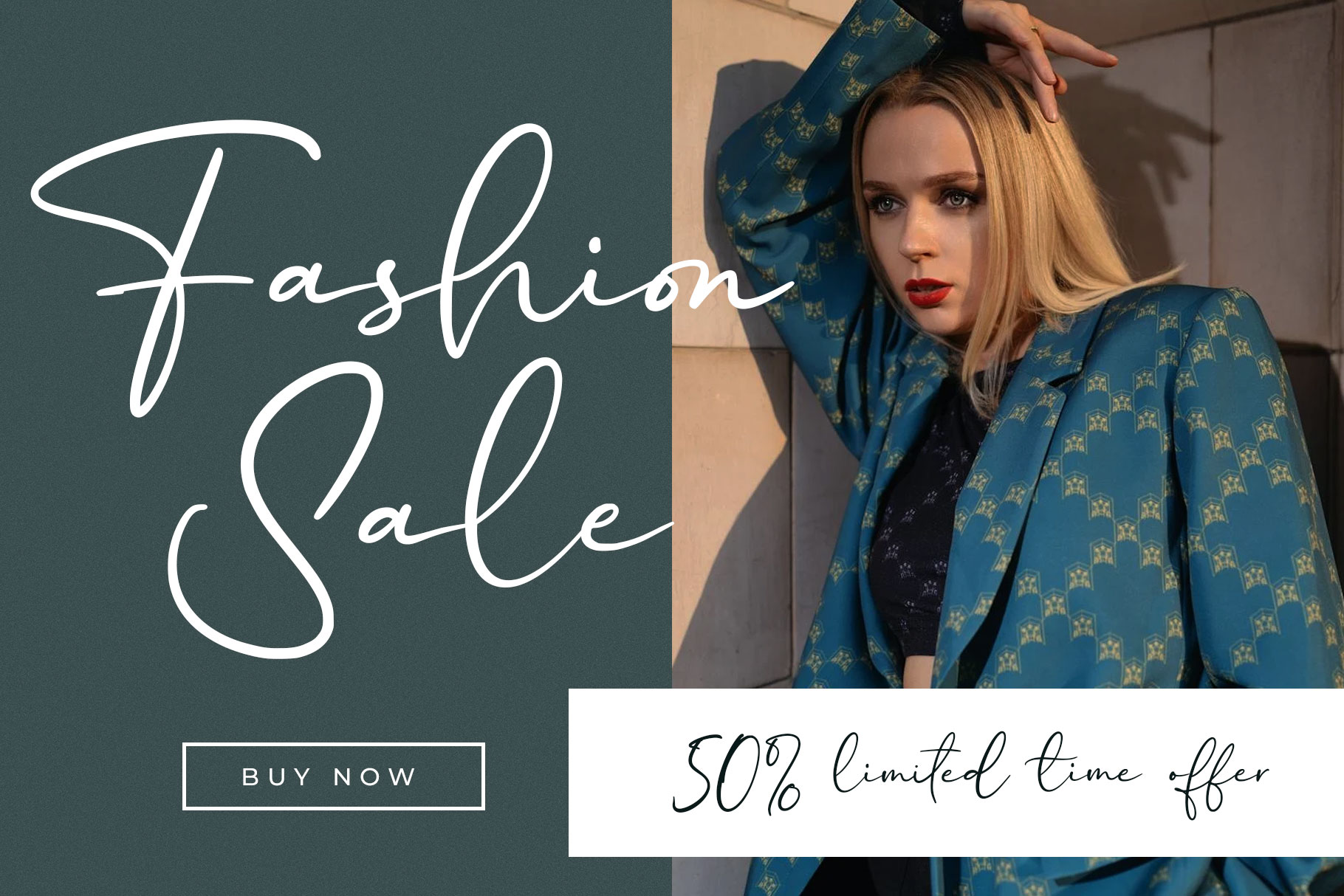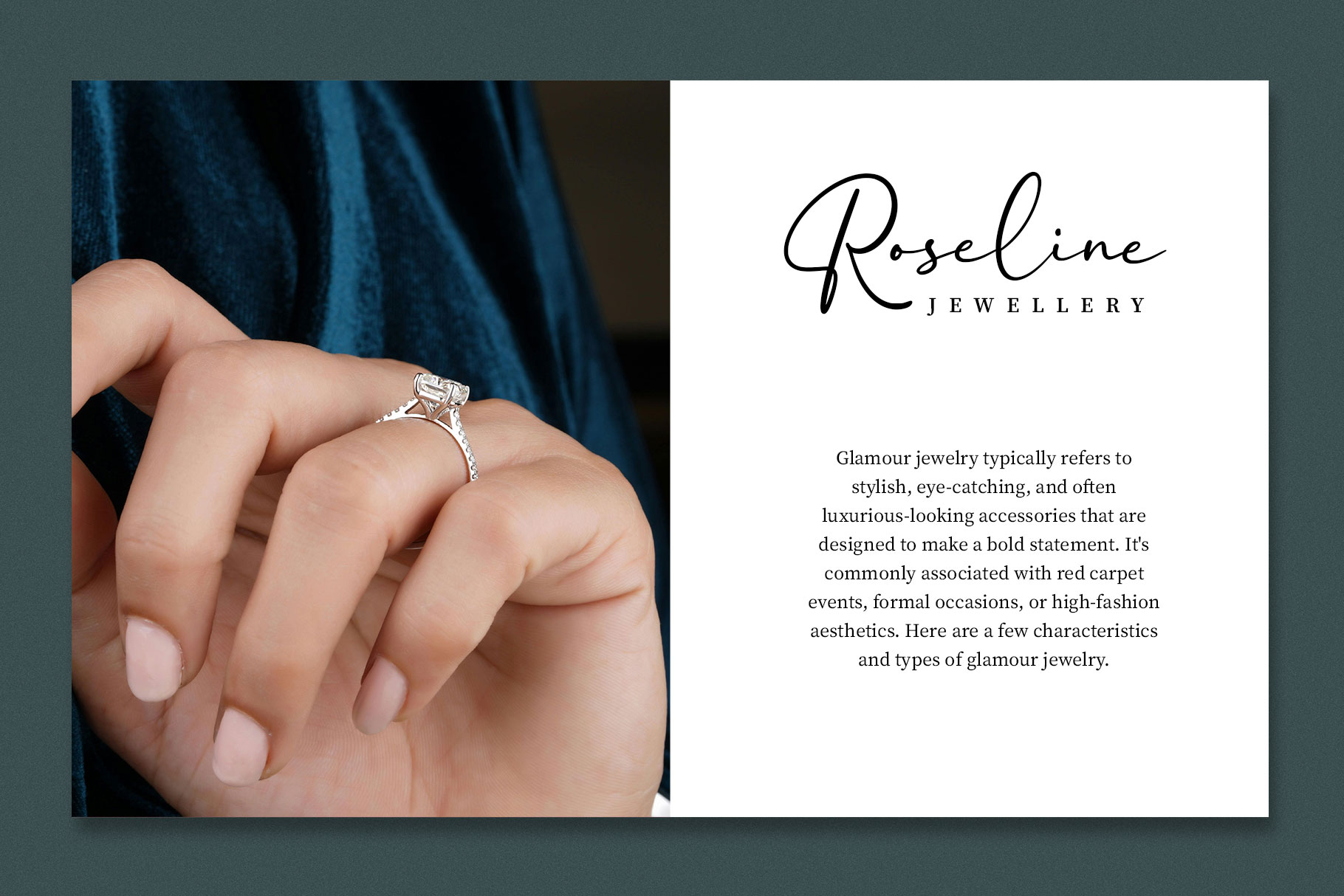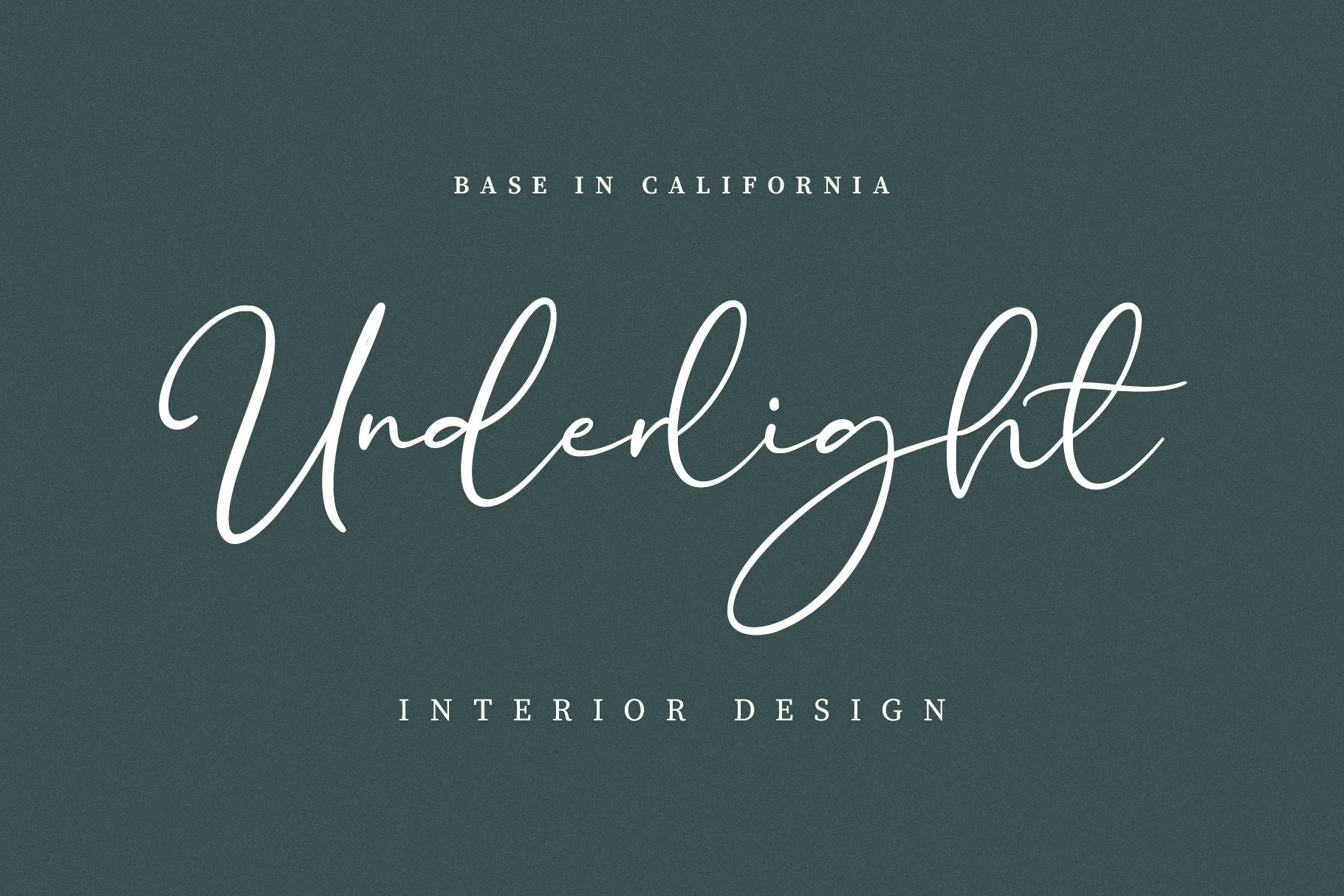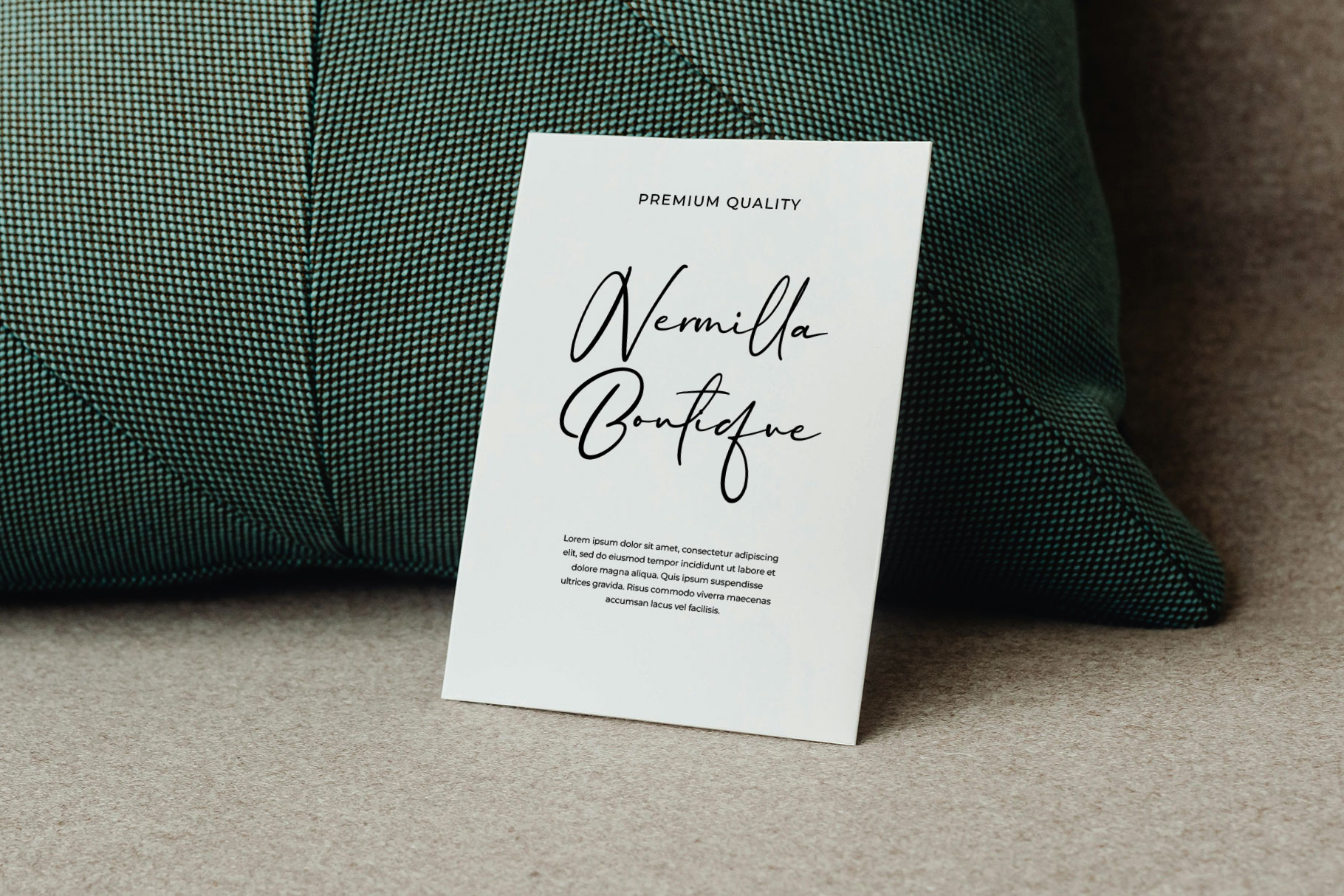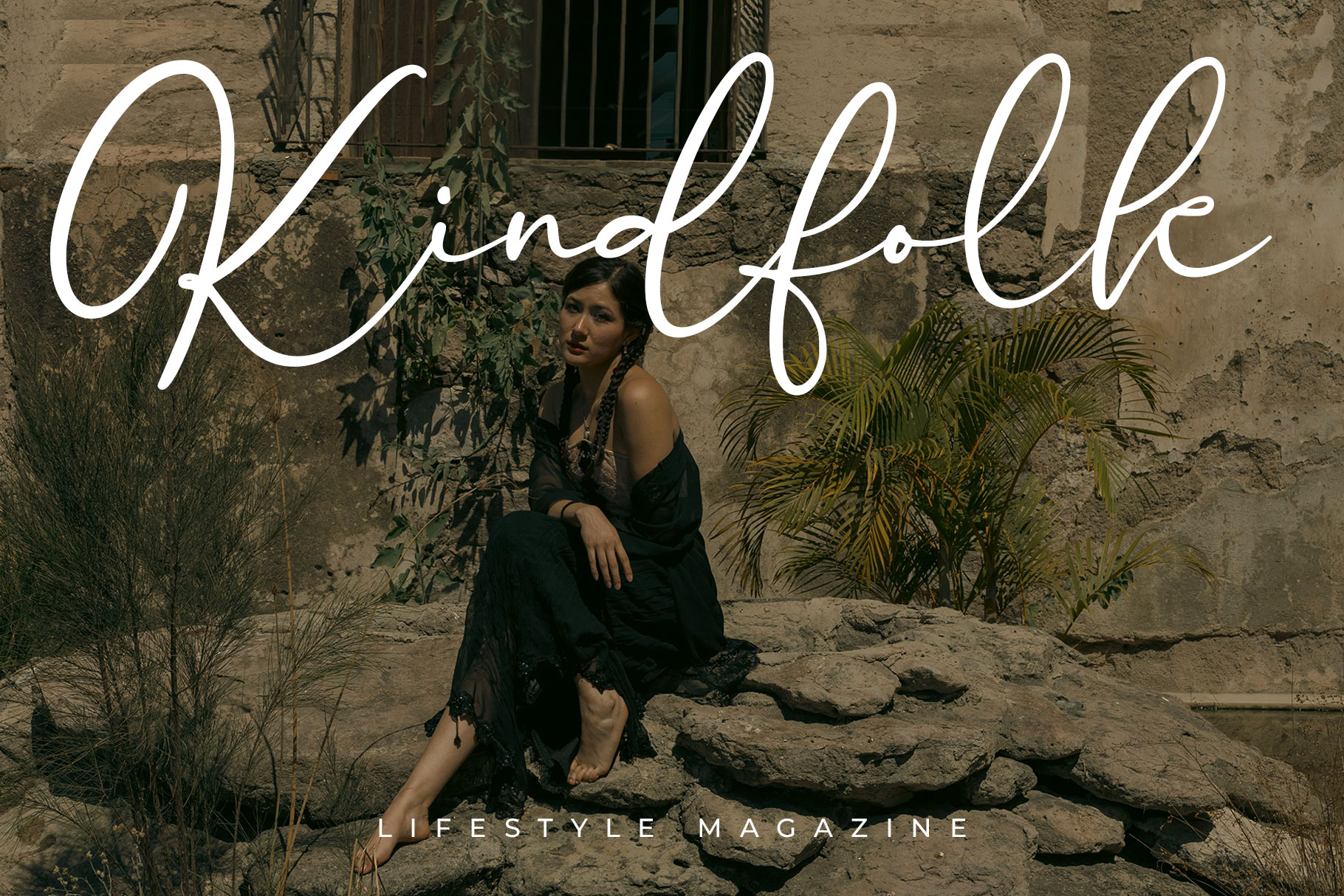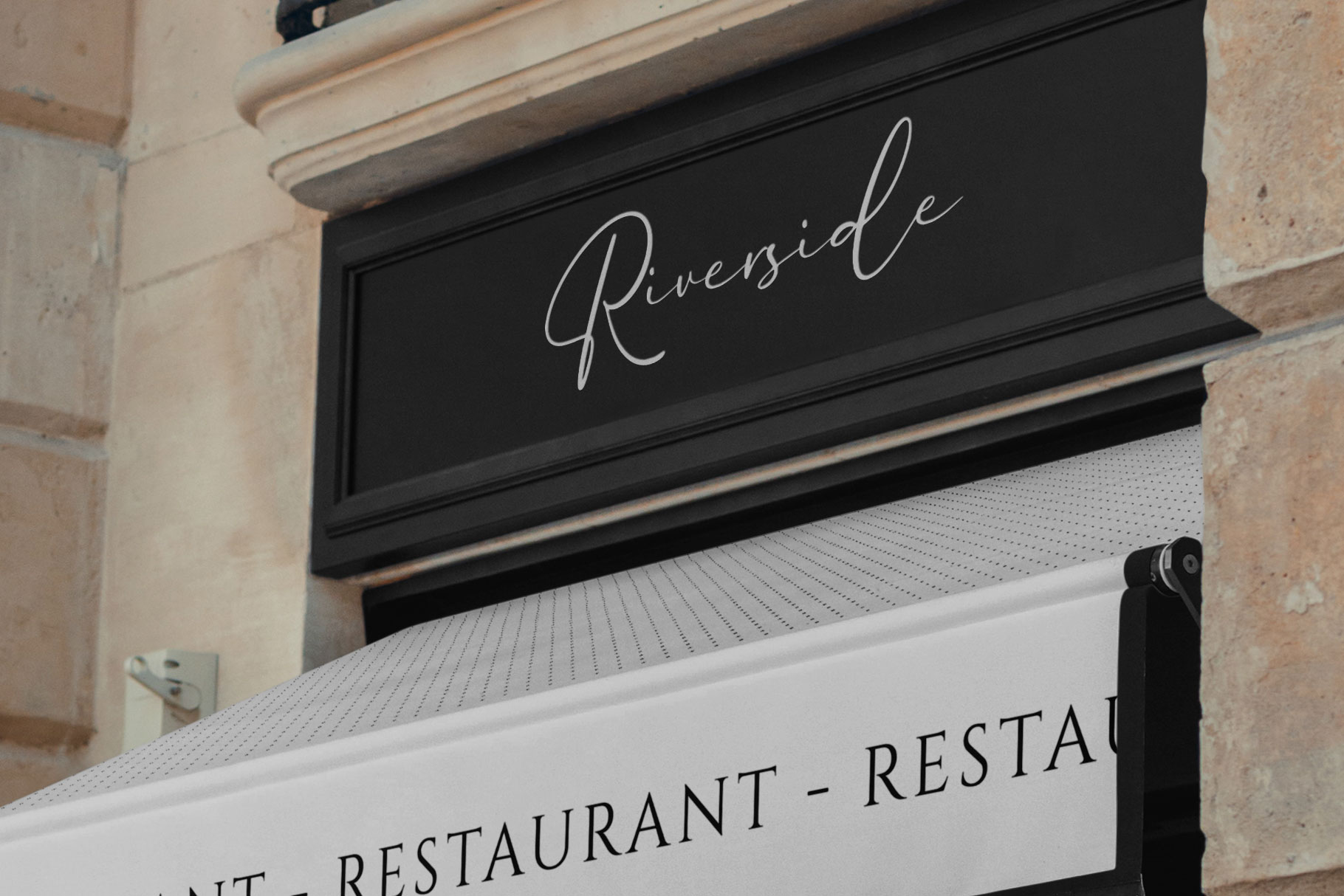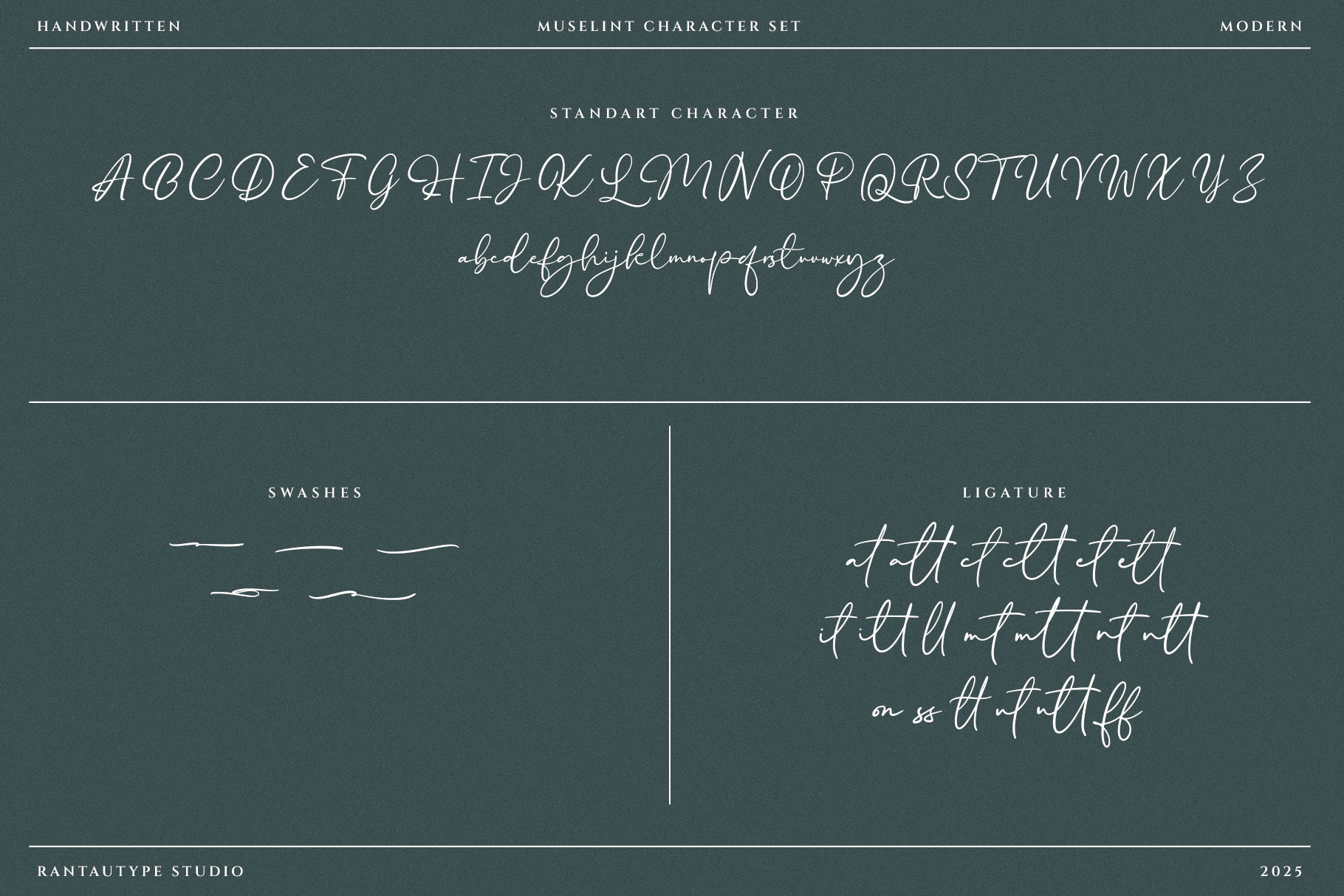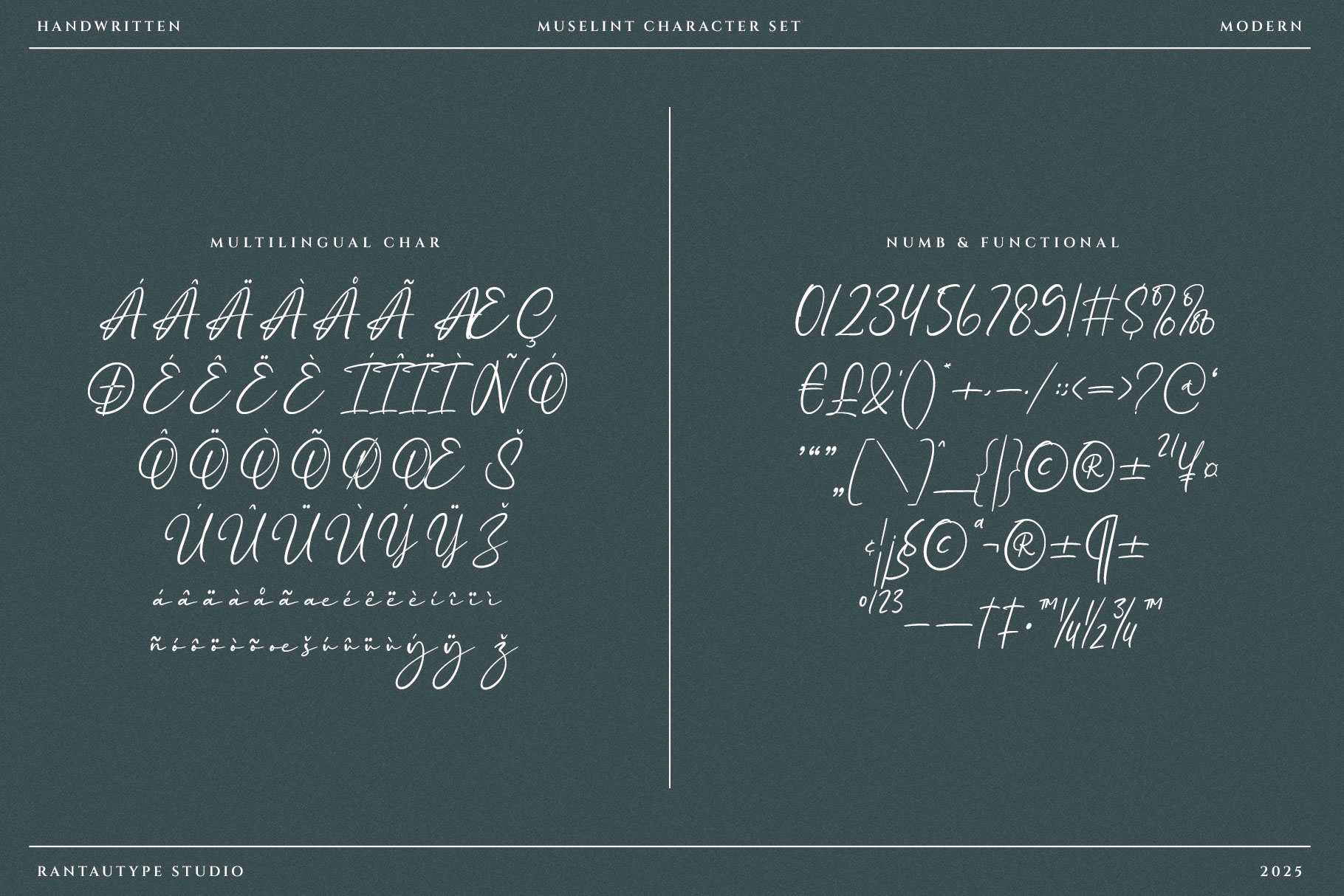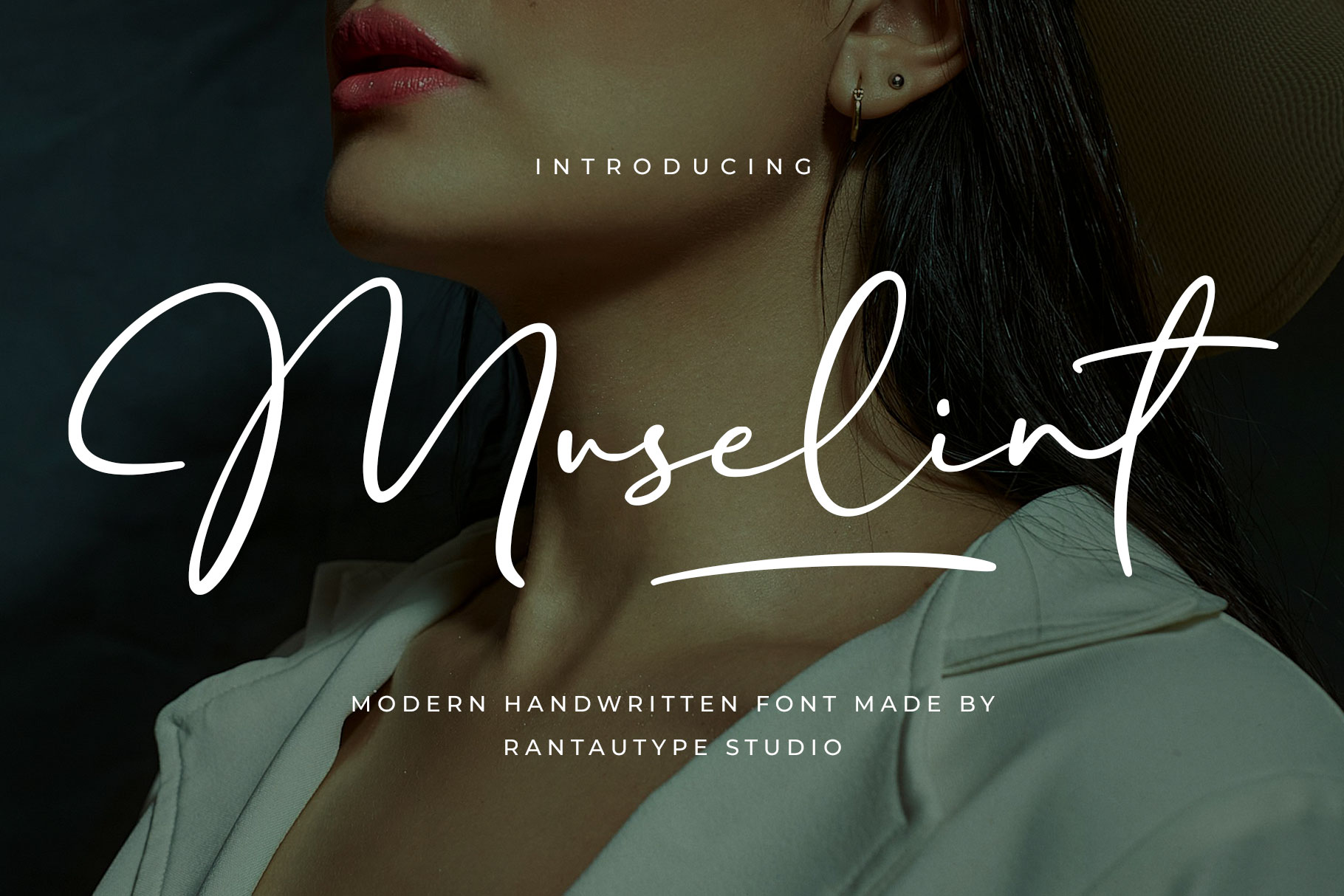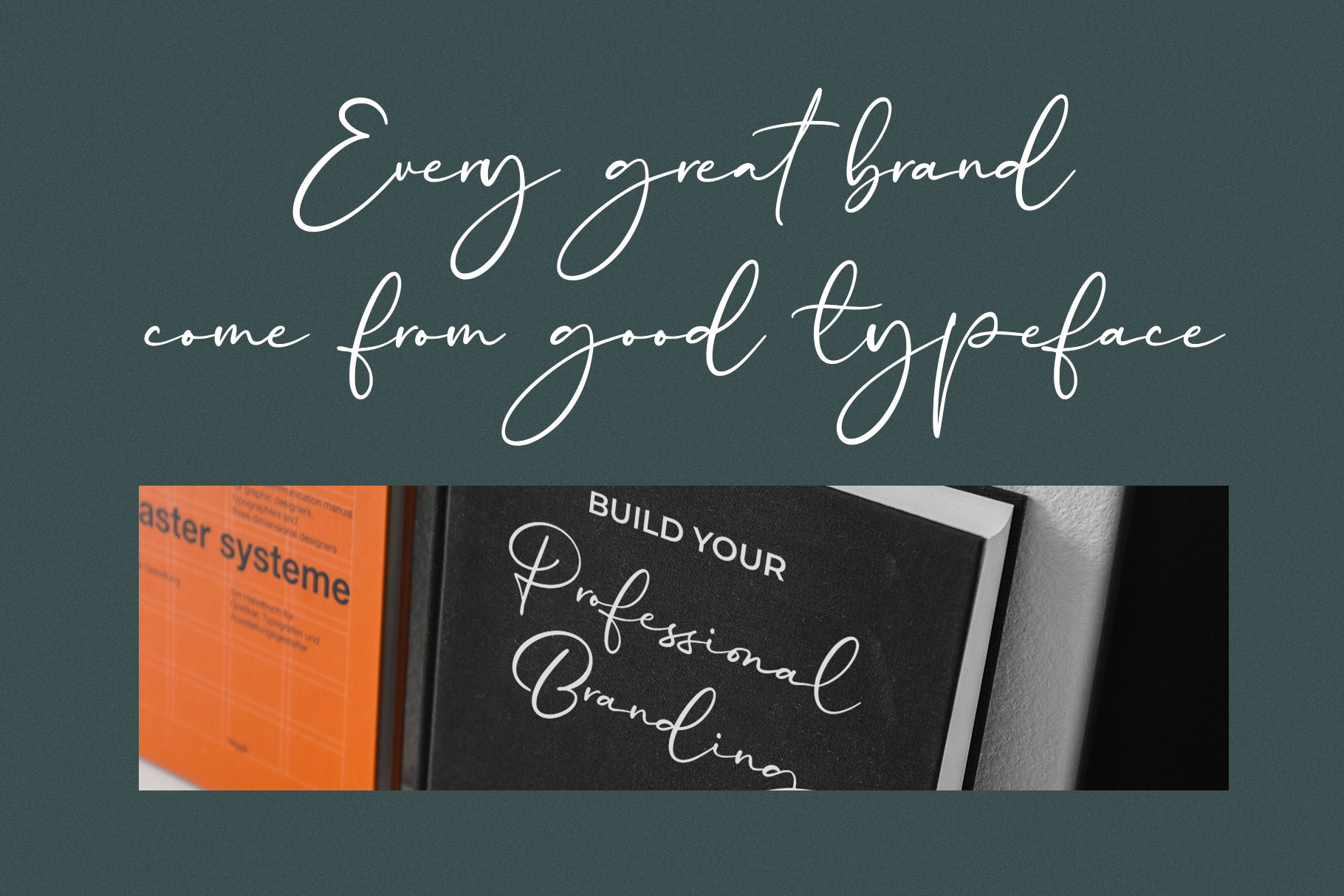
Muselint Modern Handwritten Font
Muselint is modern handwritten made by rantautype studio. Muselint come with floweless curve and stylish character to make your design project awesome. Muselint is a perfectly choice for any creative endeavor, creating, modern, chic, lifestyle design such as logotype, title, cover, branding, invitations, wedding designs, display and magazine, social media posts, advertisements, printed quotes, product packaging, corporate brand, product designs, labels, photography, watermarks, special events and any other project with modern touch.